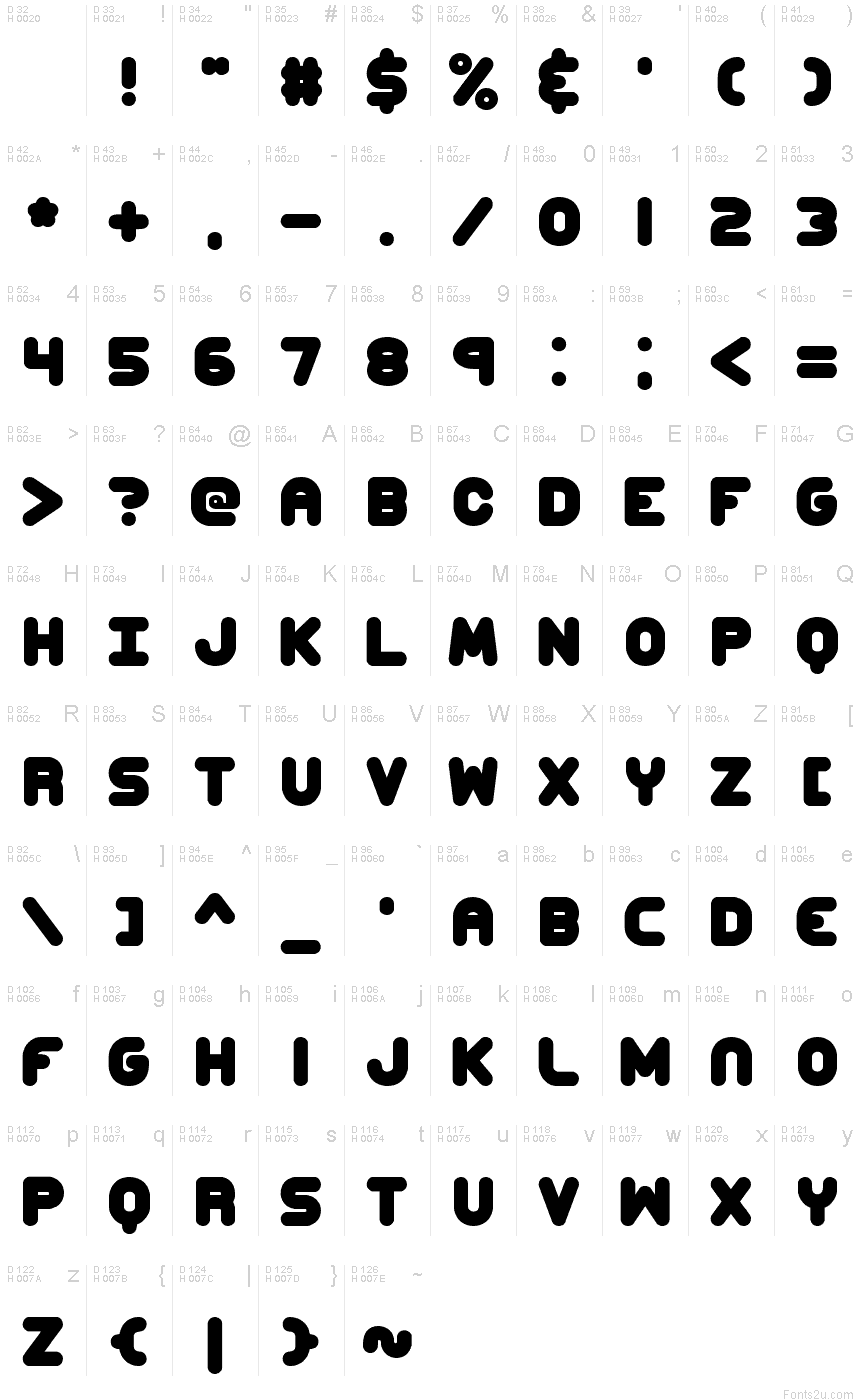
Corpulent Caps -BRK-
Corpulent Caps -BRK- font by ÆNIGMA FONTS is a free modern rounded sans typeface with a bold, tubular build that feels almost inflated. Each letter is a chunky capsule of solid black, with tight spacing and pill-shaped counters that give words a compact, pressurized look. It has a playful weight that feels both soft and sturdy, like foam letters cut from dense rubber-great when you want something loud, friendly, and impossible to miss.
Using Corpulent Caps (BRK), you can punch up game titles, toy or snack packaging, retro-styled logos, bold event posters, social media graphics, and YouTube thumbnails. This free font shines at big sizes where its rounded corners and thick strokes can really crowd the page in a satisfying way. Try pairing it with a light, simple geometric sans for body text, and let Corpulent Caps -BRK- handle the punchy headlines.